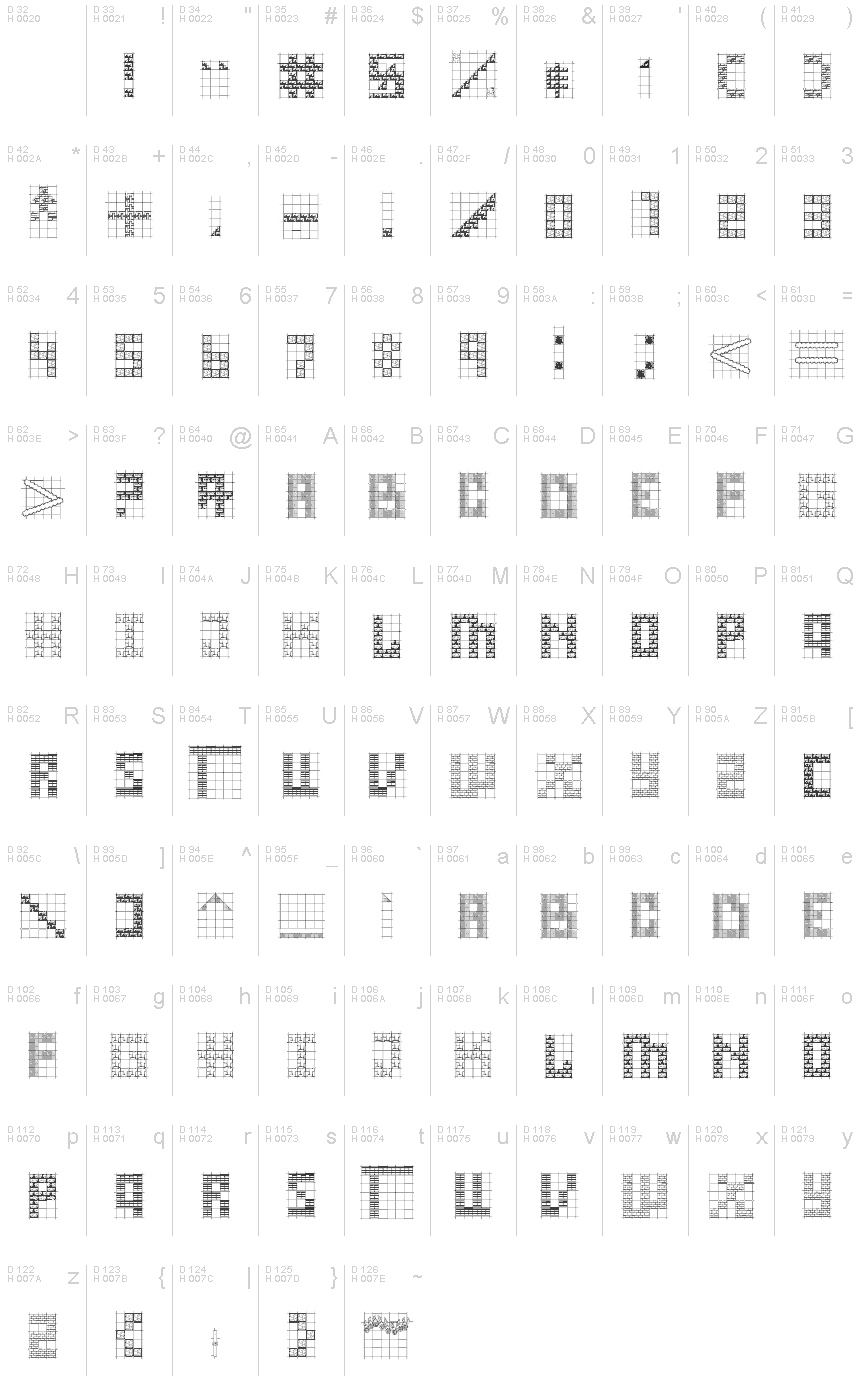
Onward
Onward is a captivating display font that radiates a sense of energy and dynamism. Its decorative, condensed letterforms exude a retro-inspired aesthetic, evoking the playful and whimsical charm of vintage video game graphics. The font's distinct, angular lines and geometric patterns lend it a bold, typographic flair, making it an excellent choice for multimedia projects, branding, and design applications that require a visually striking, attention-grabbing element.
This font's versatility shines through its suitability for a wide range of use cases, from video game user interfaces and level design to eye-catching titles, logos, and promotional materials. Its condensed width and decorative style make it a compelling option for projects that demand a compact, yet visually impactful typographic treatment.